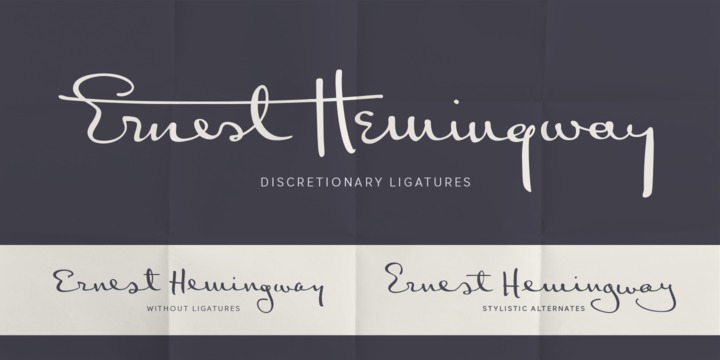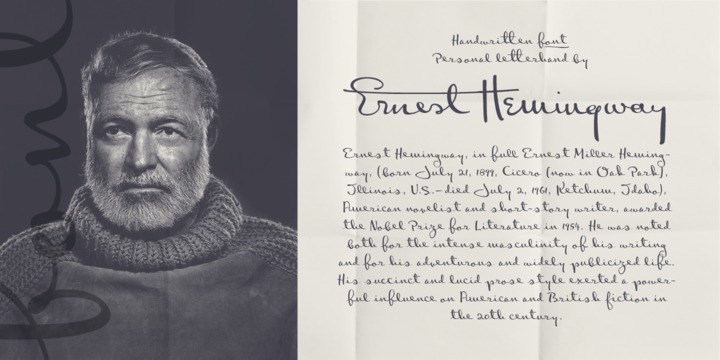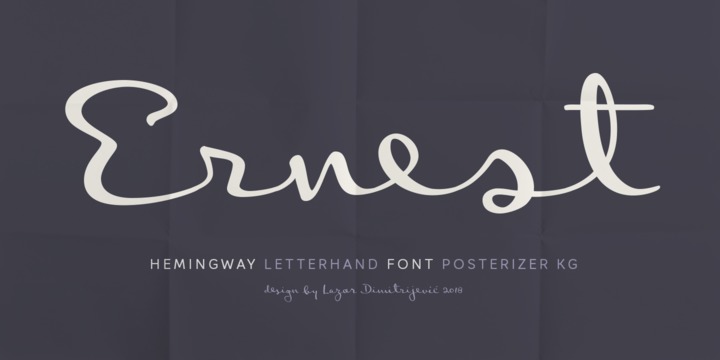
Ernest is one of Posterizer KG personal handwritten fonts. All glyphs are taken from Hemingways letters and postcards, written by himself, and then reconstructed and adapted for typographic use.
Because of spontaneity and more authentical characteristics of text, font contains alternativ glyphs and discretionary ligatures.